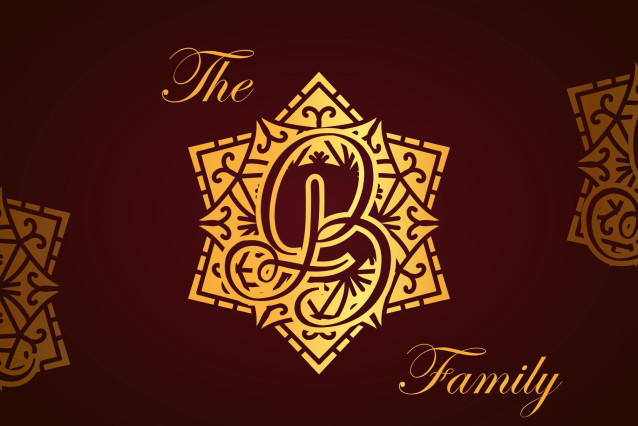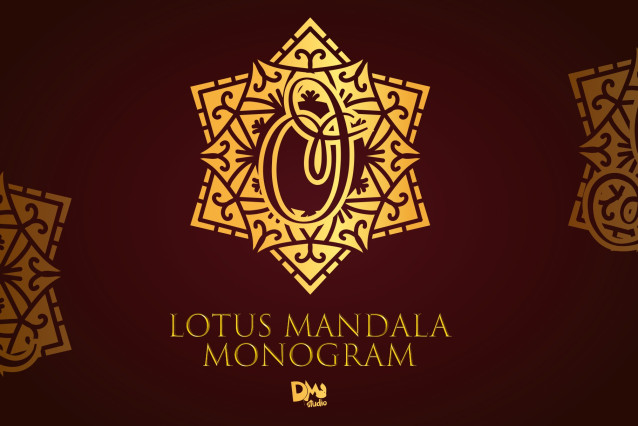
Lotus Mandala Monogram Font
Lotus Mandala Monogram is a peaceful and symbolic font that intertwines the spiritual grace of lotus petals with intricate mandala patterns. Representing purity, enlightenment, and inner peace, this font is perfect for wellness branding, spiritual design, yoga studios, personalized stationery, and mindful product packaging. Its balanced and ornamental structure brings calm sophistication to any creative project.